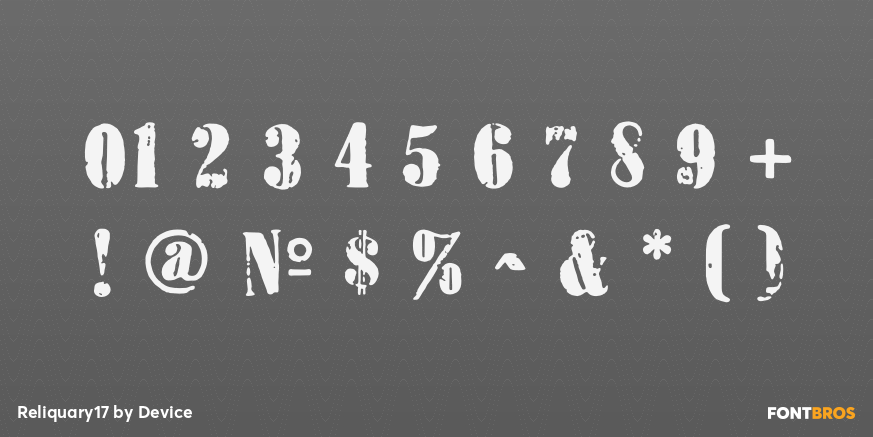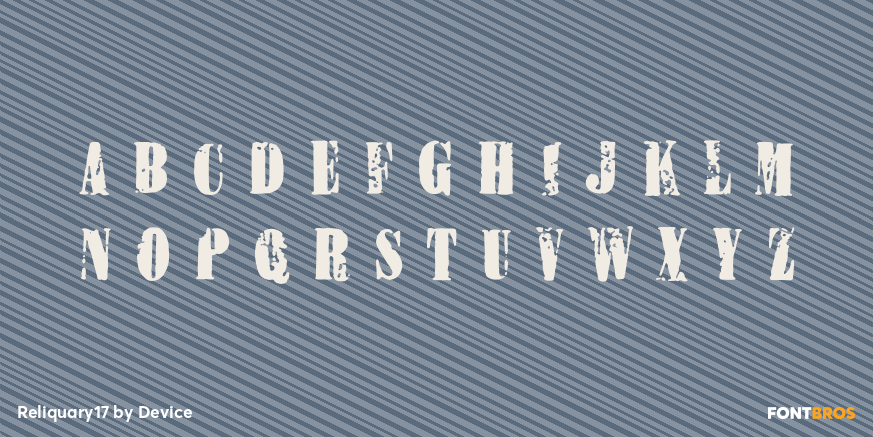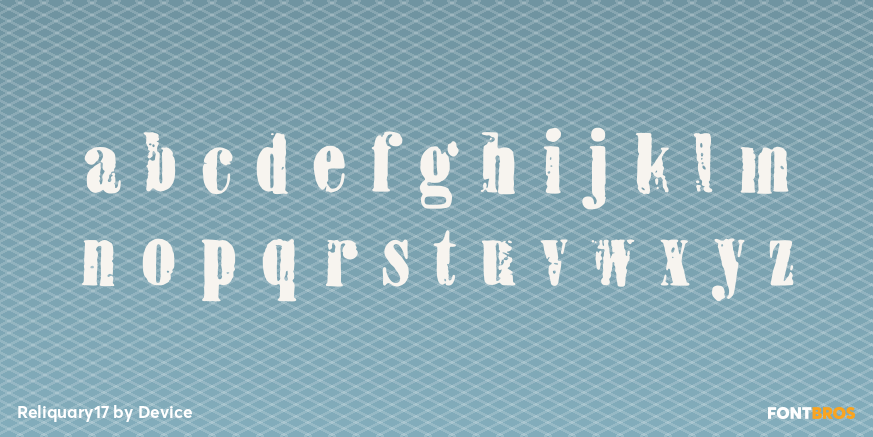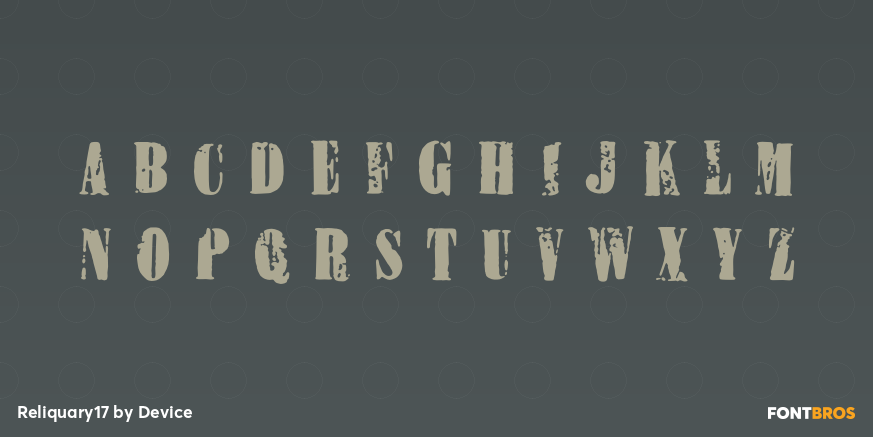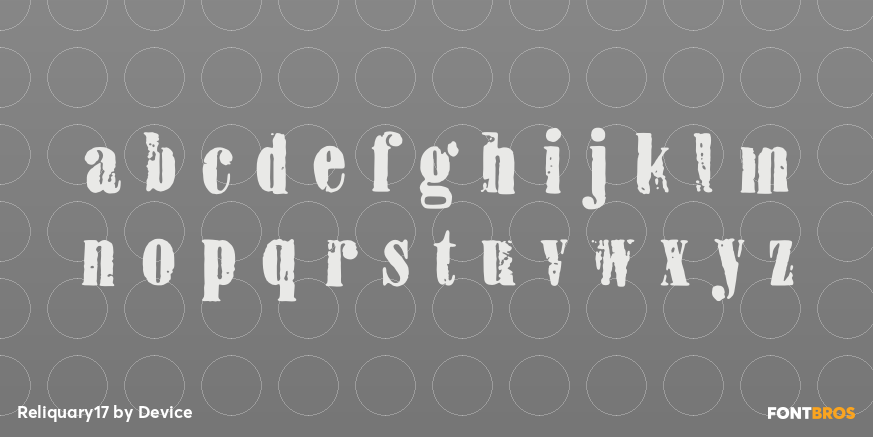
Reliquary17
Reliquary17 is a distressed, graffiti-inspired display font with a rough, urban edge. Its weathered texture and special effect styling give words an immediate sense of grit and movement, making it a strong choice when clean letterforms would feel too polished.
With its bold streetwise character, this single-style release works well for posters, apparel graphics, branding with an underground feel, and other decorative display projects that need a raw, expressive voice. Designed by Device, it brings a distinctly worn, graphic presence that suits attention-grabbing type at larger sizes.